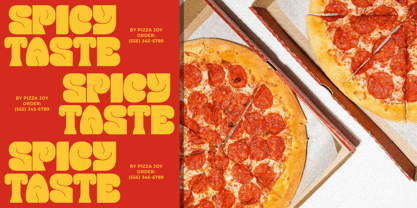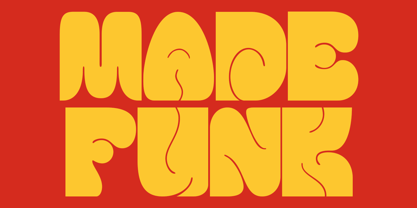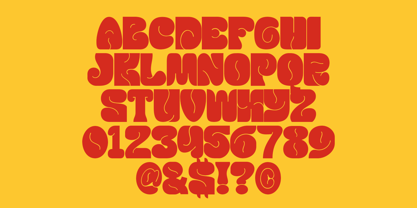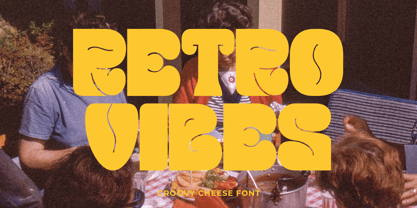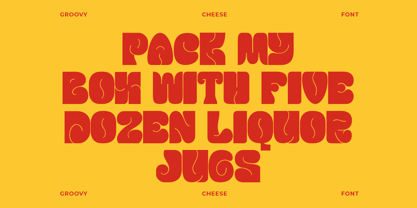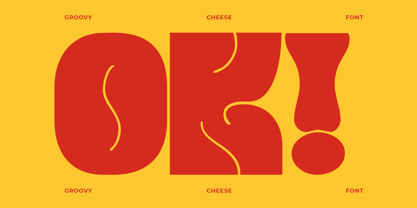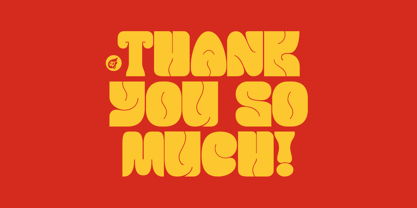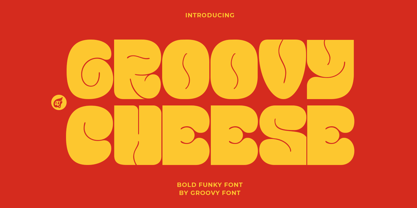
Groovy Cheese
by Groovy Font
The Groovy Cheese Font Family was designed by Ahmad Ginanjar Riyadi and published by Groovy Font. Groovy Cheese contains 1 styles. More about this family
Groovy Cheese is a bold funky font characterized by its fat appearance and smooth curves.
The thick and rounded design of this font exudes a sense of fun and playfulness, making it a standout choice for projects that require a lively and energetic vibe.
The smooth curves add a touch of whimsy and personality to the text, lending a distinct and modern flair to any design.